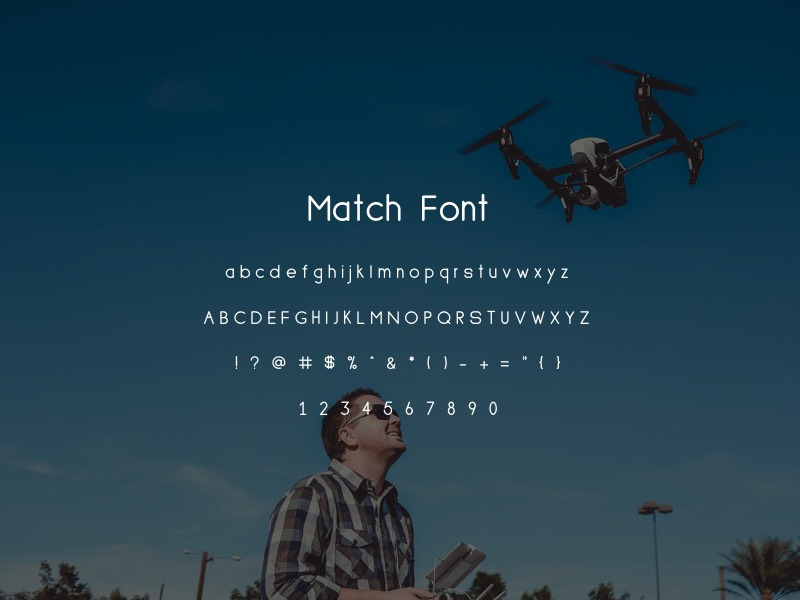
Match Font
Match Font is a modern font brought to you by the team at Designer Bundle It contains upper and lowercase characters, numerals and a large range of punctuation symbols, perfect to suit any of your creative projects.